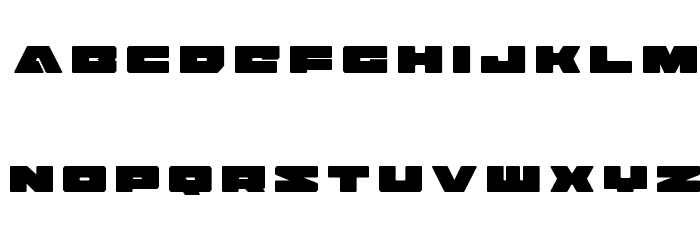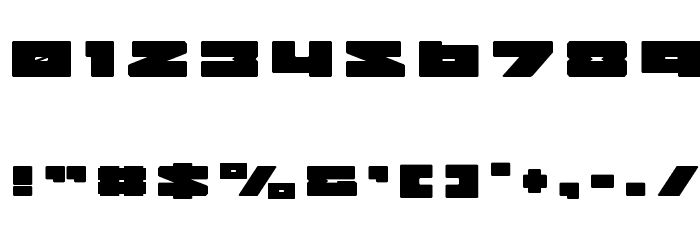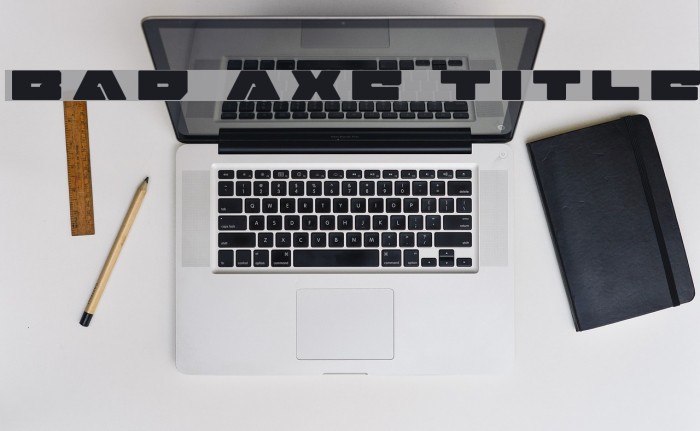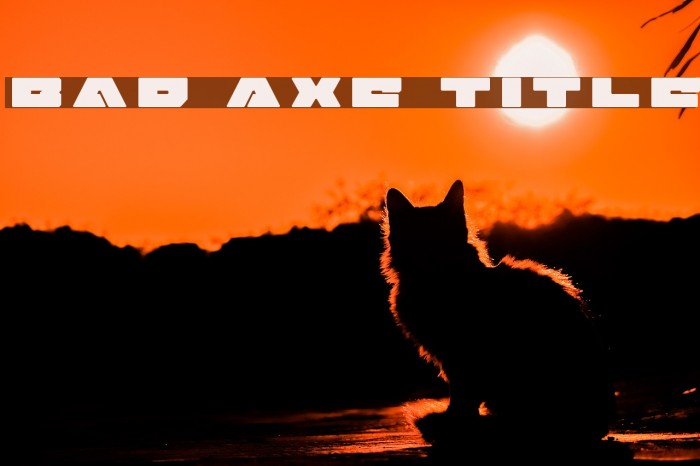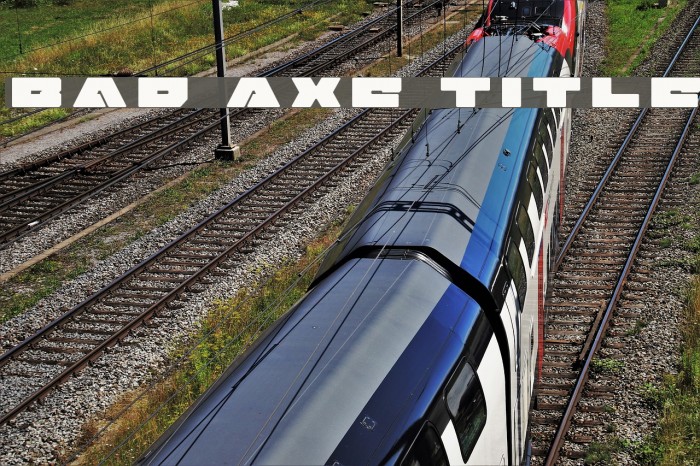
Bad Axe Title Font
This font features a bold and robust design with a strong geometric structure. The characters are blocky and angular, giving a sense of strength and stability. The uppercase and lowercase letters maintain a consistent width, creating a uniform appearance. The numbers follow the same bold style, ensuring readability and impact. Special characters are designed to match the overall aesthetic, with sharp edges and a solid presence. This font is ideal for projects that require a commanding and assertive look, such as titles, logos, and branding materials.
A bold, geometric font with a strong, angular design.
- Proposed Projects: Ideal for titles, logos, branding, posters, and any design requiring a bold statement.